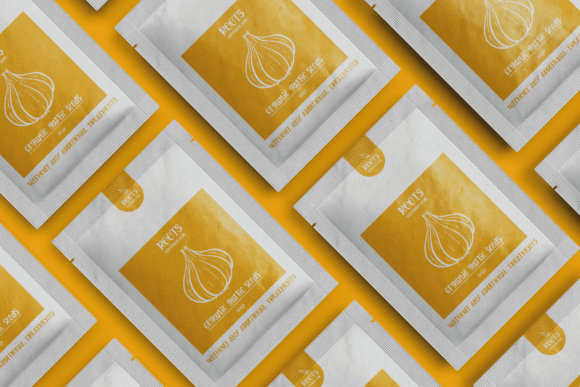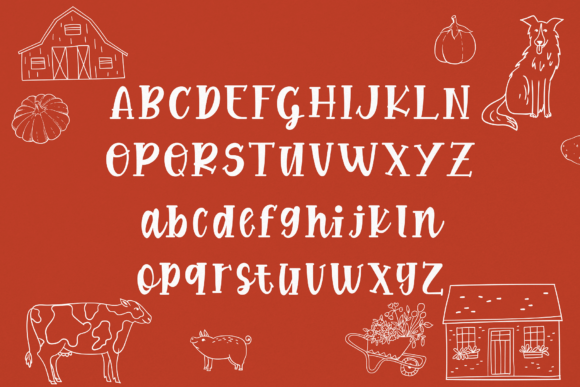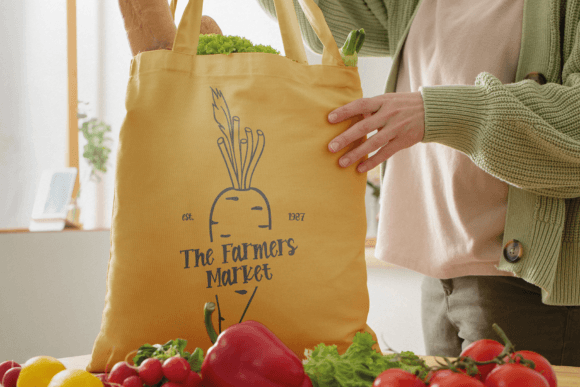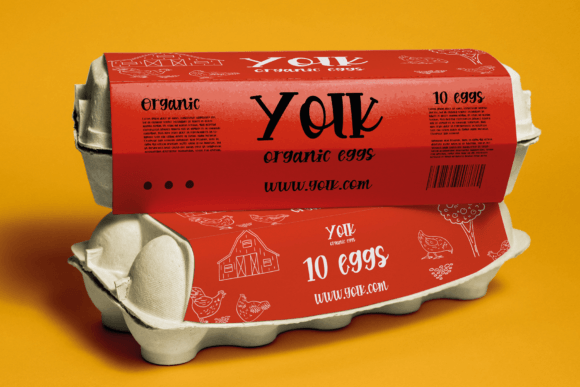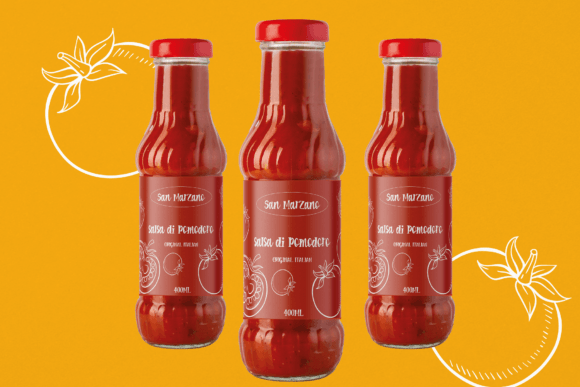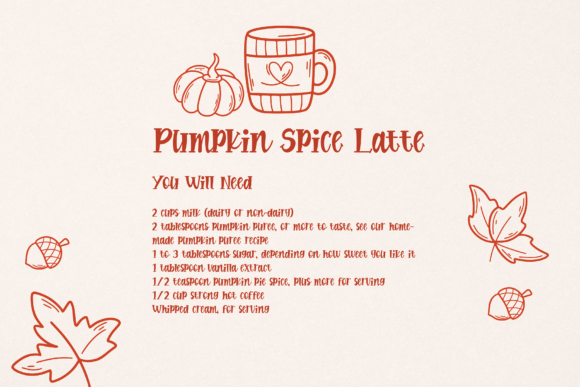
Embracing Rustic Elegance with Farmhouse Haystack Font
I’ll never forget the design moment that led me to discover the charming Farmhouse Haystack font. I was working on a project for a local farmer’s market, and I was struggling to find the perfect font that captured the essence of fresh, organic produce. The client wanted something that would evoke a sense of warmth and authenticity, but I was coming up blank. That’s when I stumbled upon Farmhouse Haystack, and it was love at first sight! ✨
A Font that Captures the Heart of Farm-Fresh Goodness
Inspired by the quaint, sun-kissed charm of organic farmers’ markets, Farmhouse Haystack exudes an adorable and heartwarming appeal. Its handwritten style, with each character lovingly crafted to resemble the strokes of a farmer’s hand, captures the essence of wholesome, farm-fresh goodness. This font invites you to infuse your designs with a warm and inviting aura that beckons customers to savor the authentic flavors and natural beauty of your brand.
- ✨ The rustic, hand-written feel that adds a touch of authenticity to any design
- ✅ The perfect blend of elegance and playfulness, making it suitable for a wide range of projects
- 💕 The warm and inviting vibe that evokes feelings of comfort and nostalgia
- 🎨 The versatility to work well in various design contexts, from labels to menus and promotional materials
While Farmhouse Haystack is an amazing font, there are a few things to keep in mind: ⚠️
- 🤔 Some characters may appear a bit condensed, which can affect readability at smaller font sizes
- ⚠️ Limited availability of stylistic alternates, which may limit design flexibility
The creator of Farmhouse Haystack drew inspiration from the rustic charm of rural landscapes and the warmth of traditional farm-to-table settings. With a passion for hand-lettering and a love for the great outdoors, the designer aimed to craft a font that would evoke the sense of simplicity and authenticity found in farm-fresh produce.
| Font Name | Farmhouse Haystack Font |
Q: What is the best use for Farmhouse Haystack font?
A: Farmhouse Haystack is perfect for designs that require a rustic, farm-fresh feel, such as labels, menus, and promotional materials for local markets, artisanal products, and farm-to-table settings.